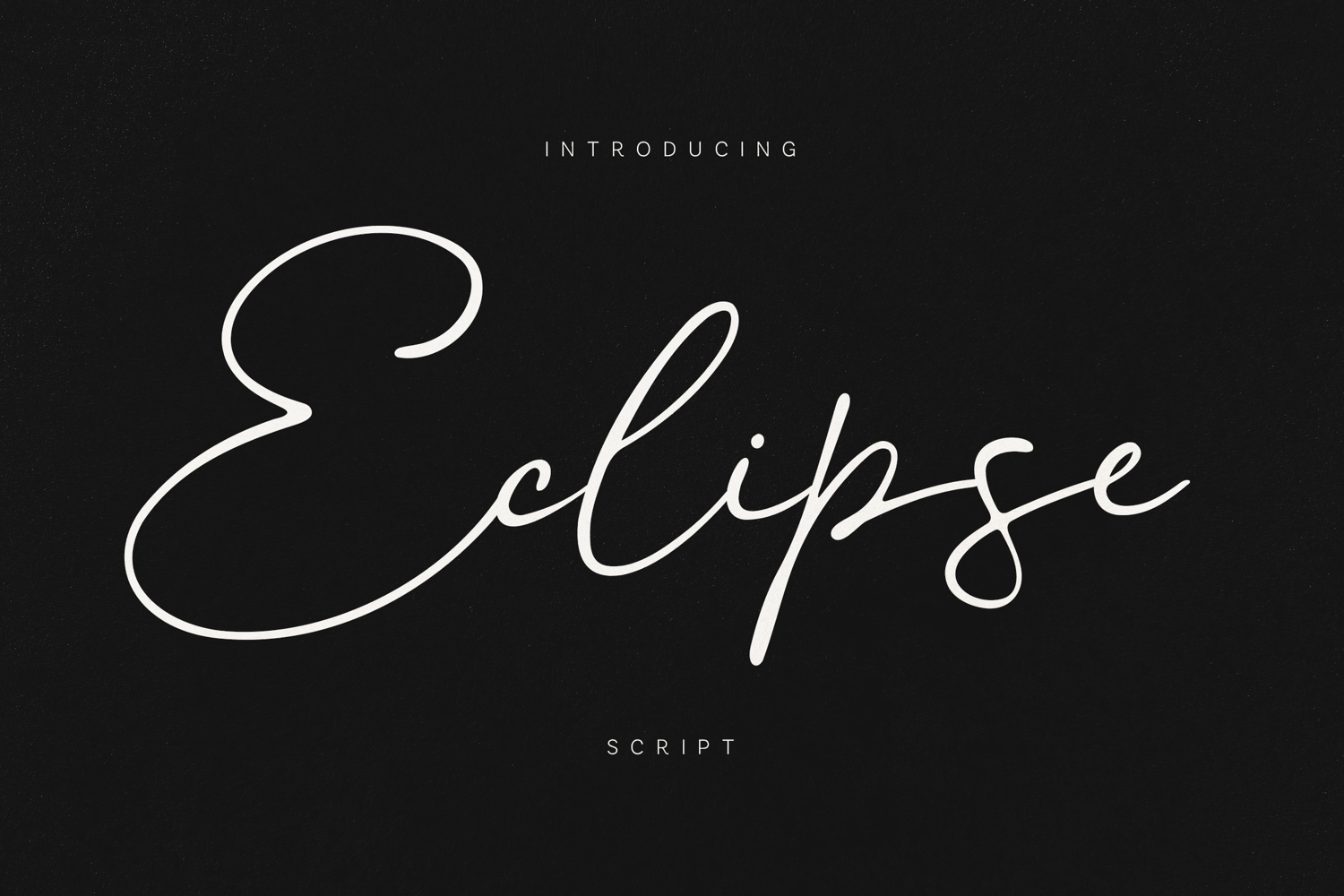
Eclipse Script Elegant Signature Handwritten Font
Introducing Eclipse Script, an elegant handwritten signature font designed to bring sophistication, authenticity, and effortless beauty to your creative projects.
With its flowing strokes, graceful curves, and naturally connected letterforms, Eclipse Script captures the charm of real handwriting while maintaining exceptional readability. The font features luxurious swashes, stylish alternates, and a smooth signature aesthetic that feels both modern and timeless.
Perfect for premium branding, fashion editorials, wedding invitations, social media content, logos, packaging, photography watermarks, and signatures, Eclipse Script delivers a refined handwritten look that elevates every design.
Its multilingual support and carefully crafted glyph set make it suitable for international brands, creative entrepreneurs, and designers seeking an elegant script with professional versatility.
Features- Uppercase & Lowercase Characters
- Numbers & Punctuation
- Extended Latin Characters
- Natural Handwritten Style
- Elegant Signature Look
- Smooth Connecting Letterforms